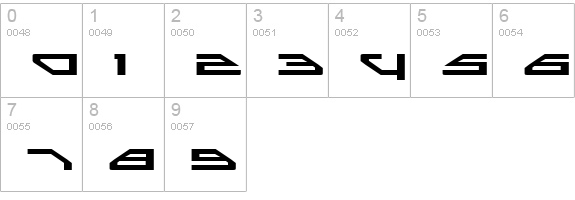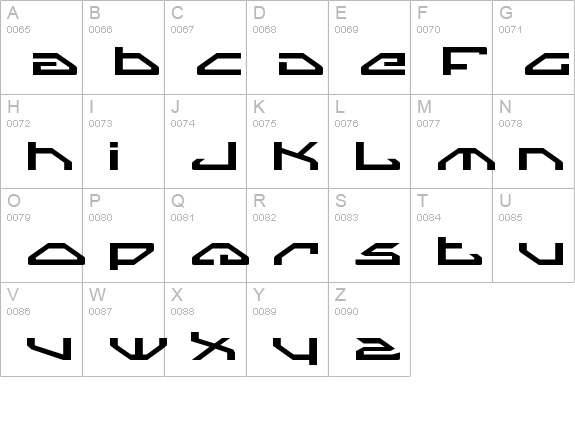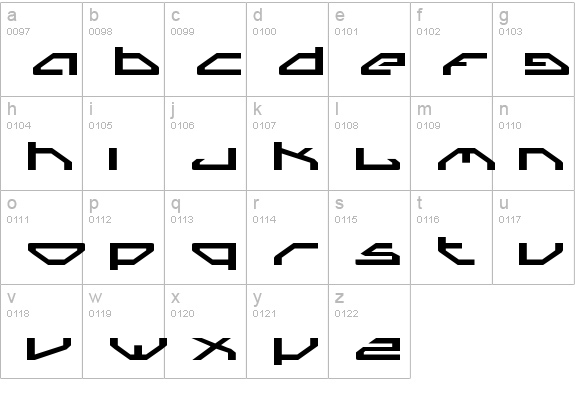
Spylord Expanded is a distinctive, extended-width variant in the Spylord typeface family \xE2\x80\x94 well suited to design and typography projects.
Spylord Expanded is a captivating and daring font that exudes an air of mystery and intrigue. Crafted with meticulous attention to detail, this font is perfect for adding a touch of espionage to any project. With its bold and futuristic design, Spylord Expanded commands attention and effortlessly captures the essence of clandestine operations. Featuring an expanded version of the original Spylord font, this typeface takes espionage to new heights. Its elongated and sleek letterforms create a sense of movement and intensity, making it ideal for headlines, titles, and branding projects that require a bold statement. But what sets Spylord Expanded apart is not just its alluring design, but also its accessibility. This font is freely available to download at FontsMarket.com, allowing designers, creatives, and typophiles to easily incorporate it into their work. No need to break the bank or compromise on quality, Spylord Expanded offers the best of both worlds – a captivating font without the hefty price tag. Whether you're working on a top-secret mission, a cutting-edge magazine layout, or a captivating poster, Spylord Expanded is here to elevate your design to new levels. Its versatility and legibility make it suitable for a wide range of applications, while its distinct style adds a unique touch to any project. With Spylord Expanded, you can unleash your inner spy and create designs that leave a lasting impression. So, download this font for free at FontsMarket.com and embark on a typographic adventure like no other. Let the world of espionage inspire your creativity and captivate your audience with the enigmatic allure of Spylord Expanded.